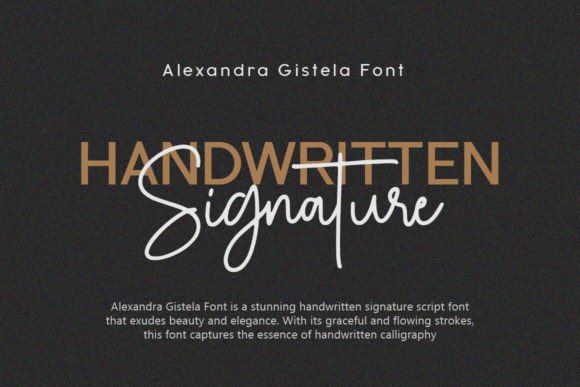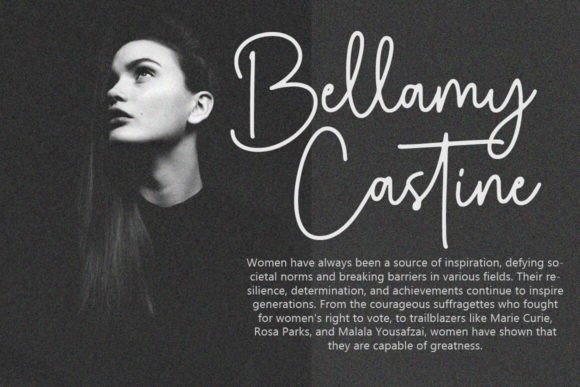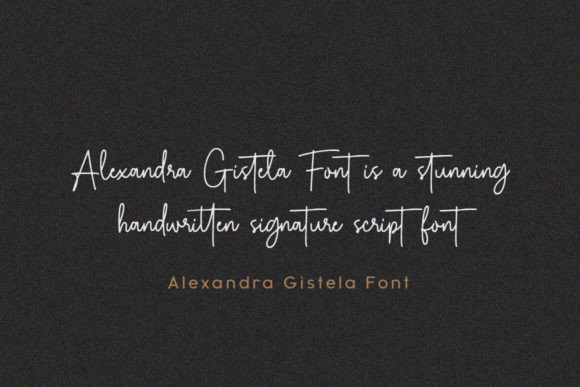
Introduction to Alexandra Gistela Font
Alexandra Gistela is a stunning handwritten signature script font that exudes beauty and elegance.
Alexandra Gistela is perfect for creating luxurious branding materials, wedding invitations, greeting cards, and other projects that demand a touch of refined beauty .
Why Choose Alexandra Gistela Font?
Alexandra Gistela Font offers exceptional quality and versatility, making it a valuable addition to your design toolkit. Whether you’re creating for personal projects or commercial use, Alexandra Gistela Font delivers professional results.